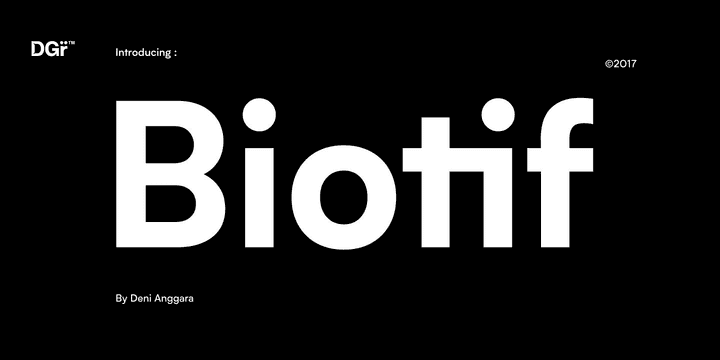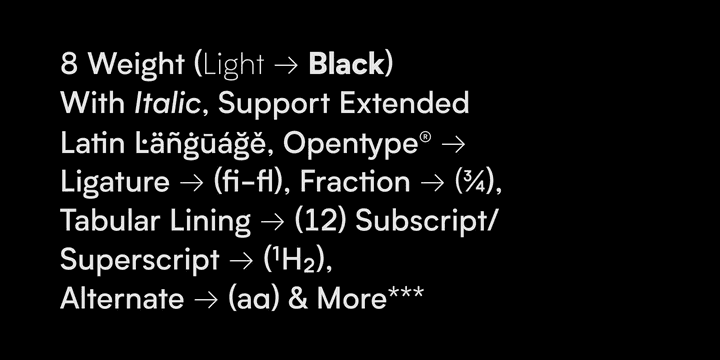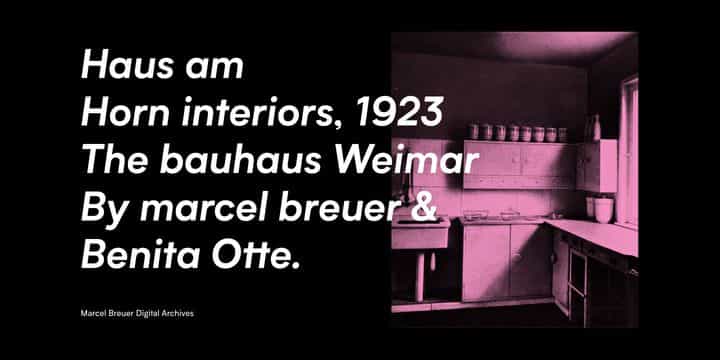
BIOTIF is a modern sans serif with a geometric typical characters, Inspired by Modern Style & Industrial Era Typographic and Graphic design, comes in 16 weights from Light to Black, BIOTIF is was manually hinted and optimized in small sizes for screens.